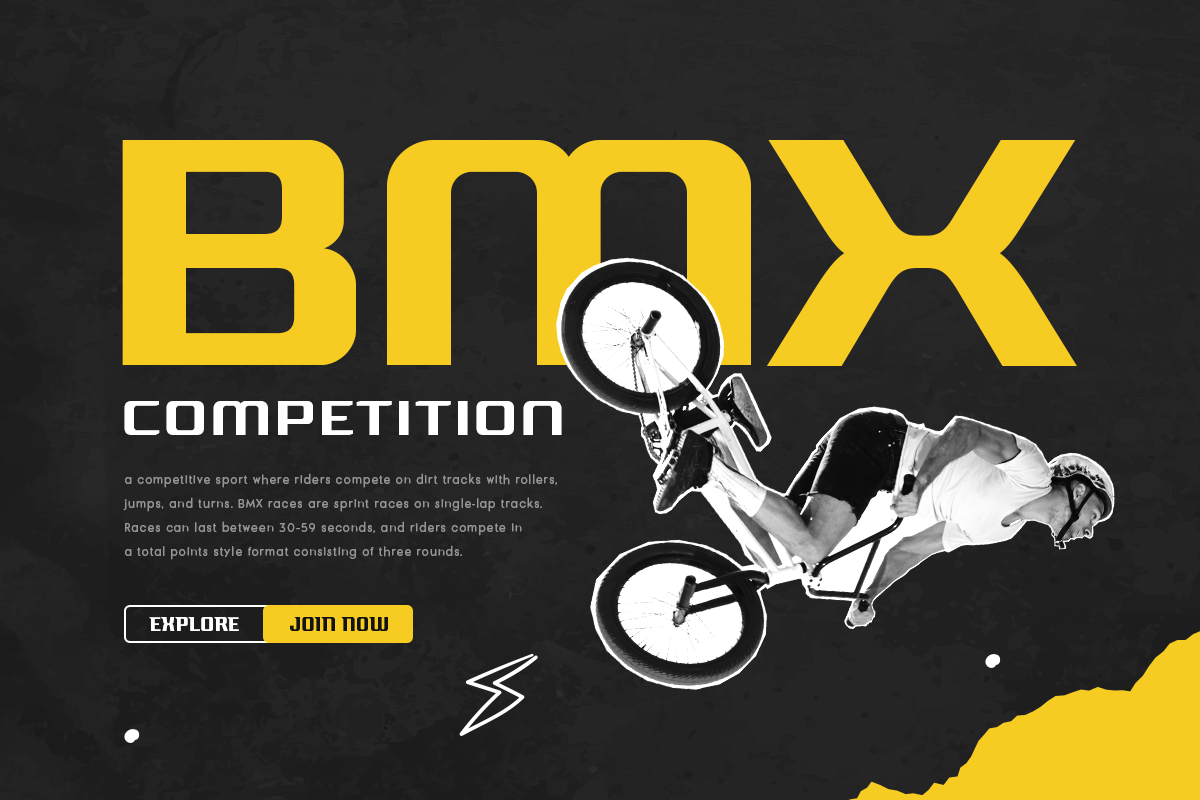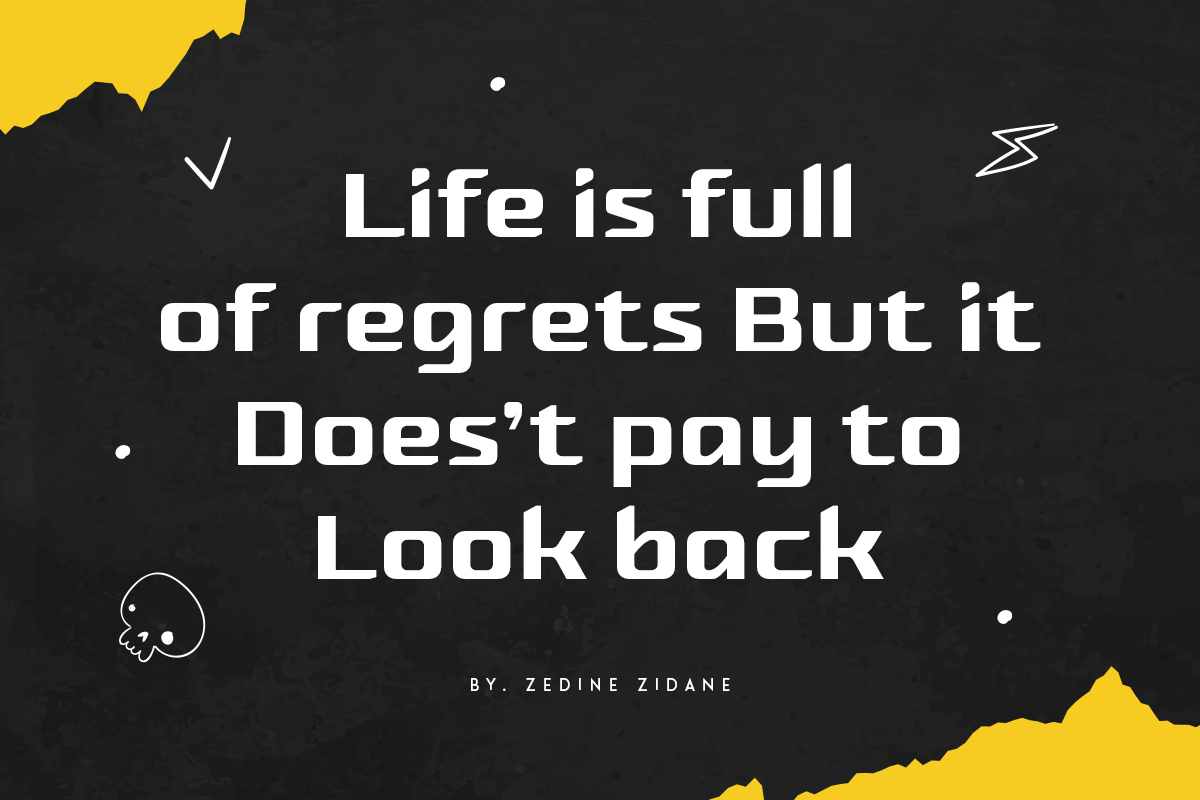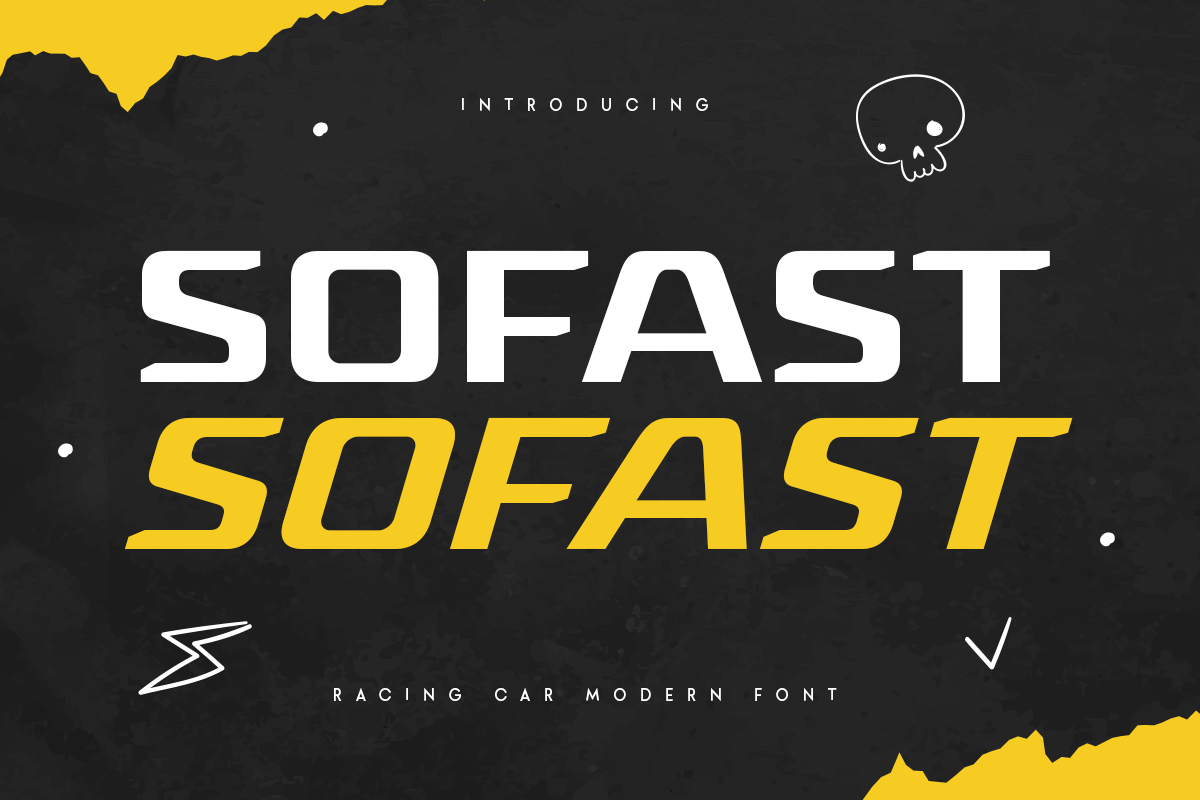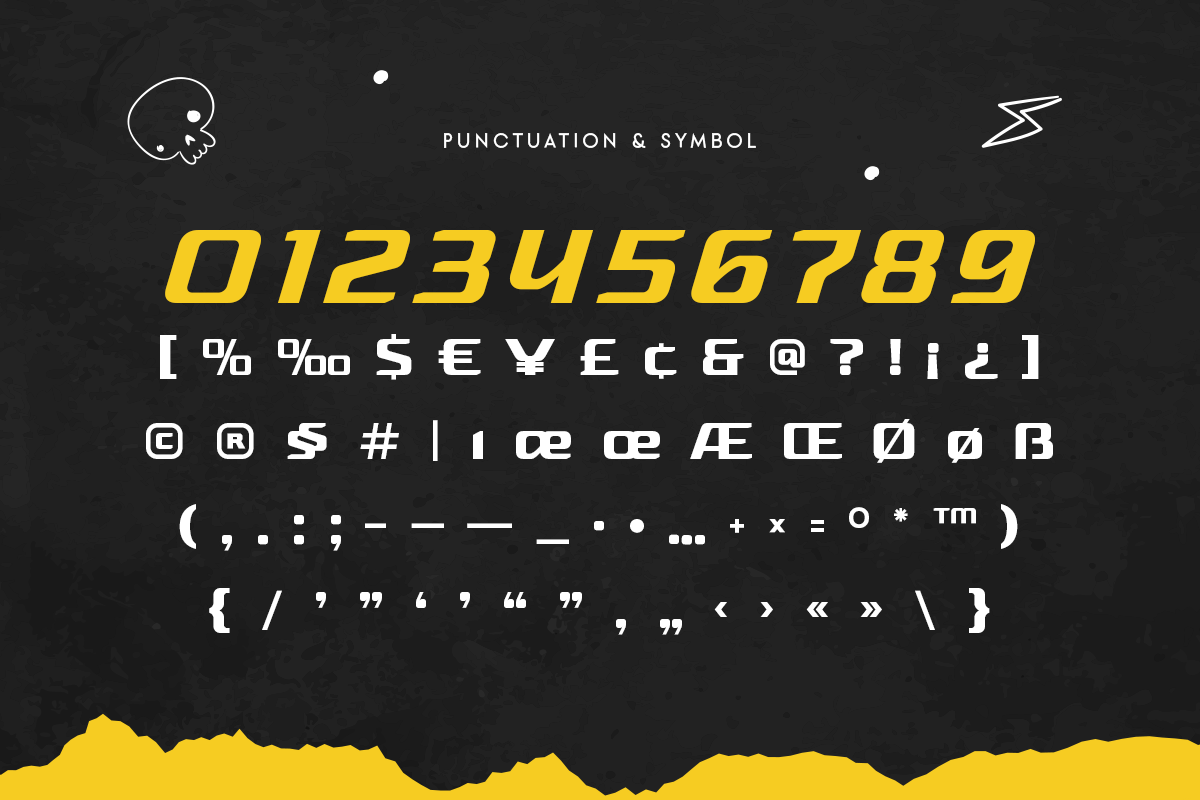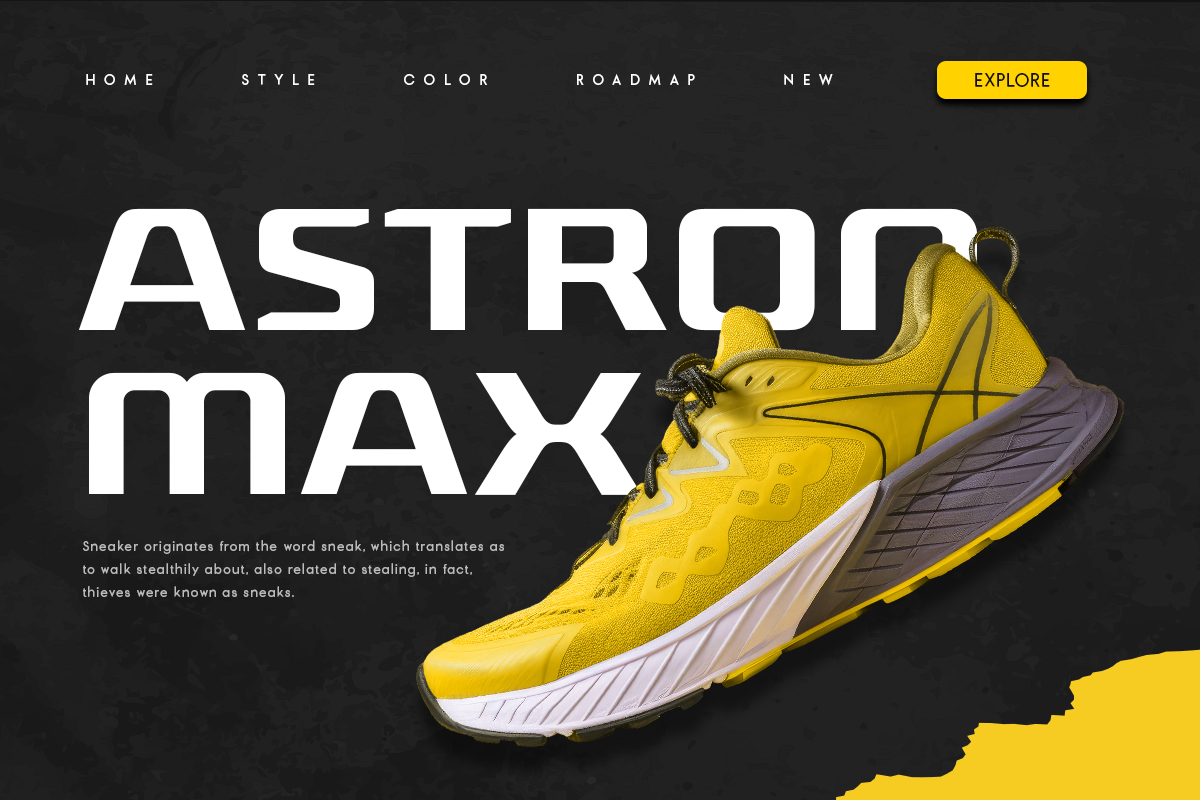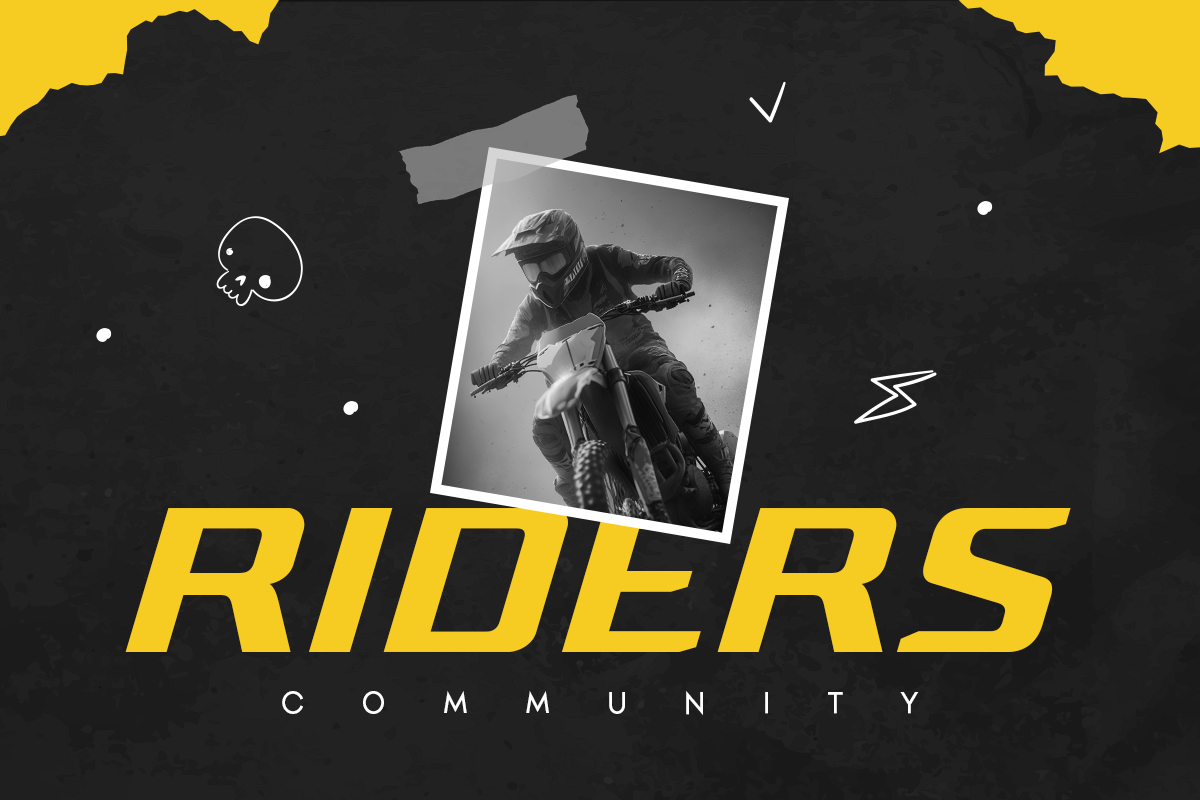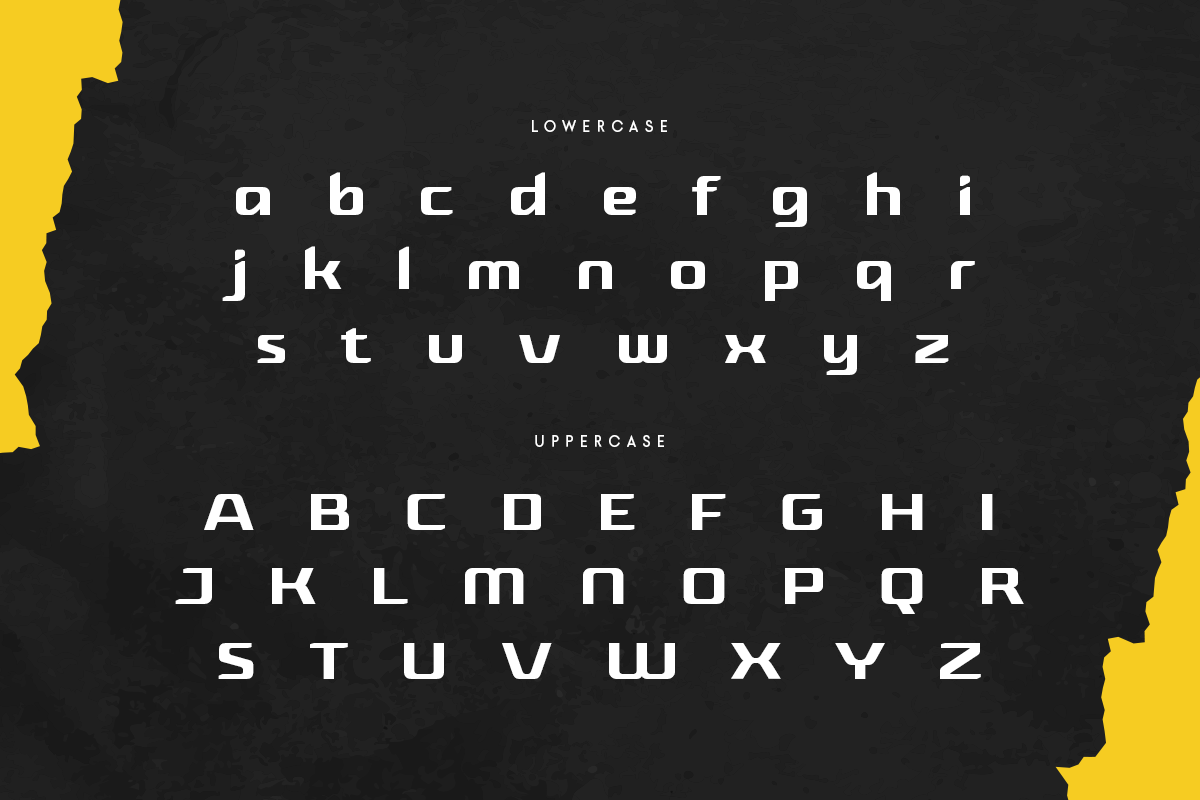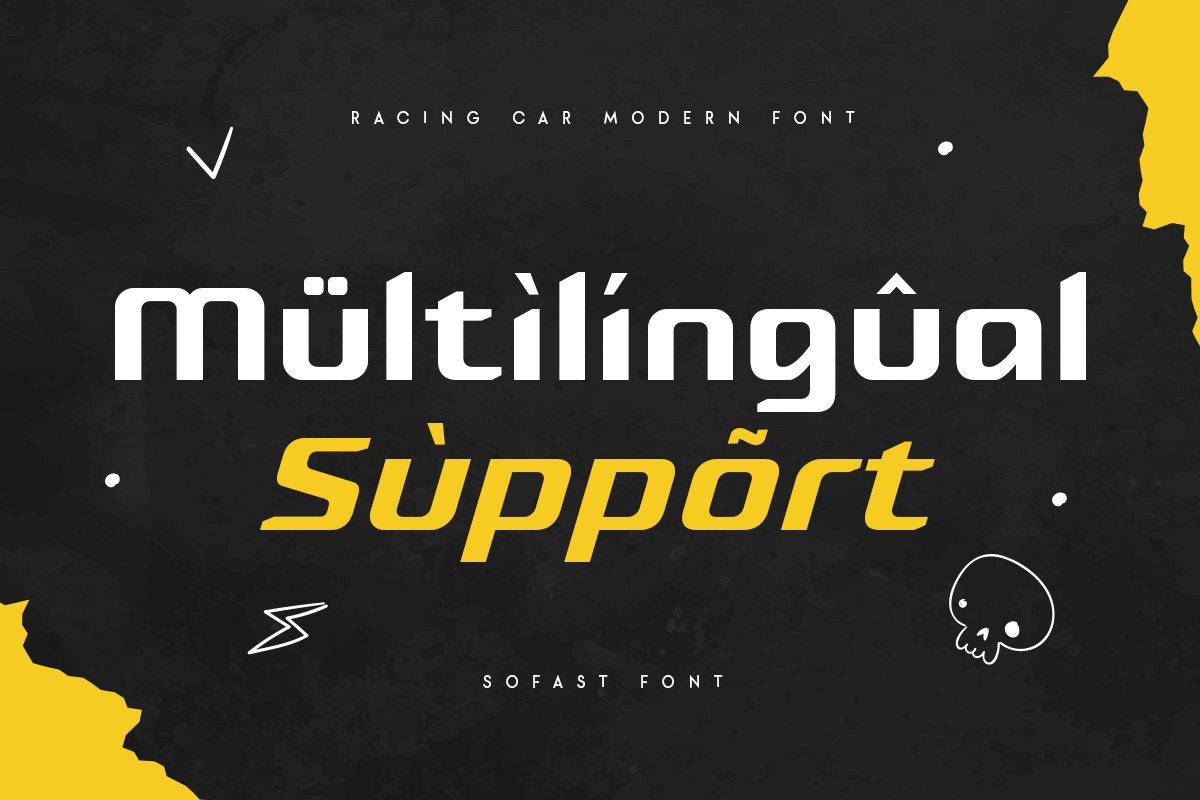
SOFAST - Racing Car Modern Font
SOFAST Futuristic Modern Sport Font is a Modern Logo Racing Font that Modern, Racing and unique characters are ready for Sport event, that you can combine to get any variations and unique shapes easily just in seconds with great characters. It is a Sport font in Regular and Italic that perfect for sport branding projects, jersey, logo, wedding designs, social media posts, advertisements, product packaging, product designs, label, watermark, and any projects, it makes with a high level of legibility.
- Character set A-Z
- Ready with Uppercase & Lowercase